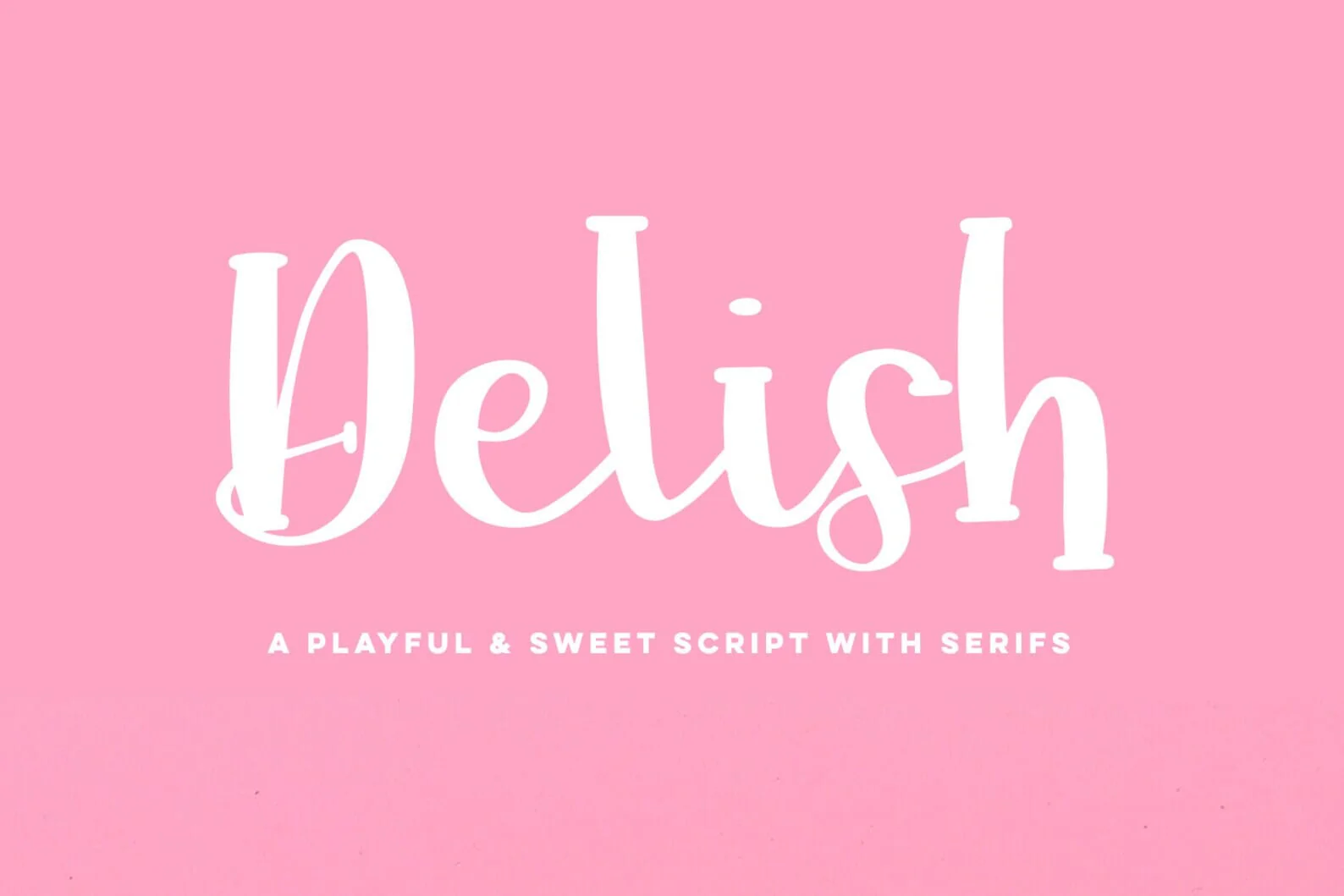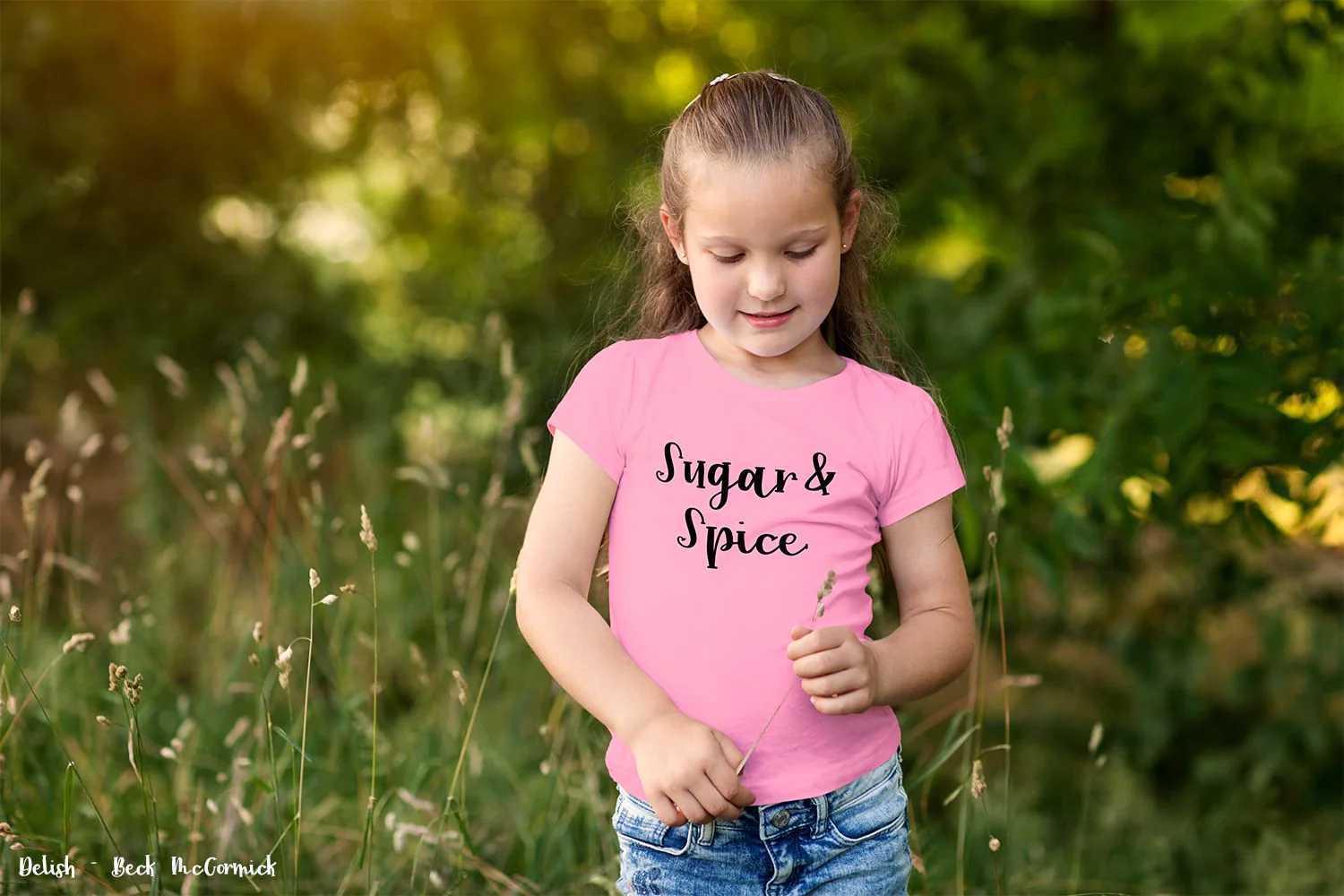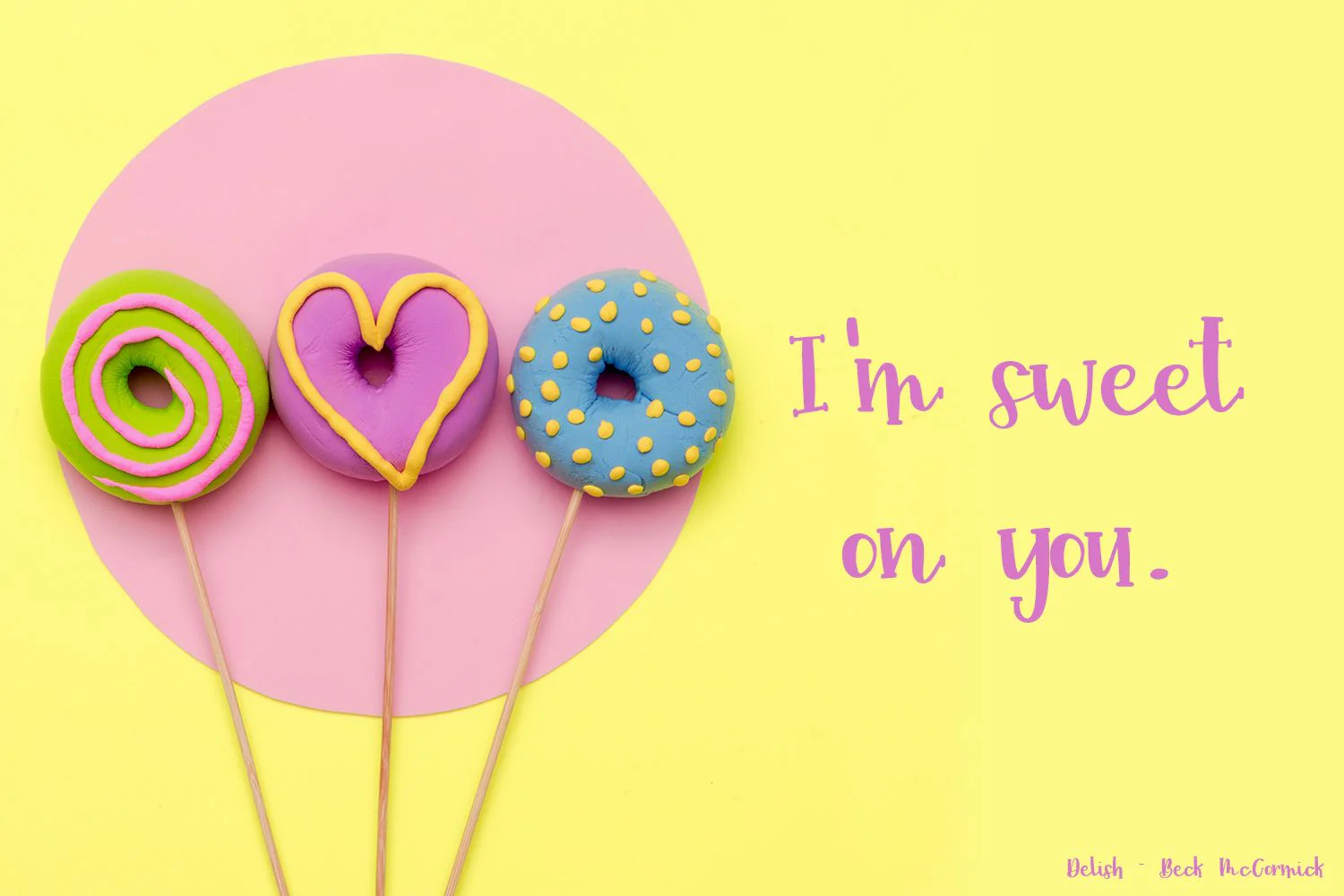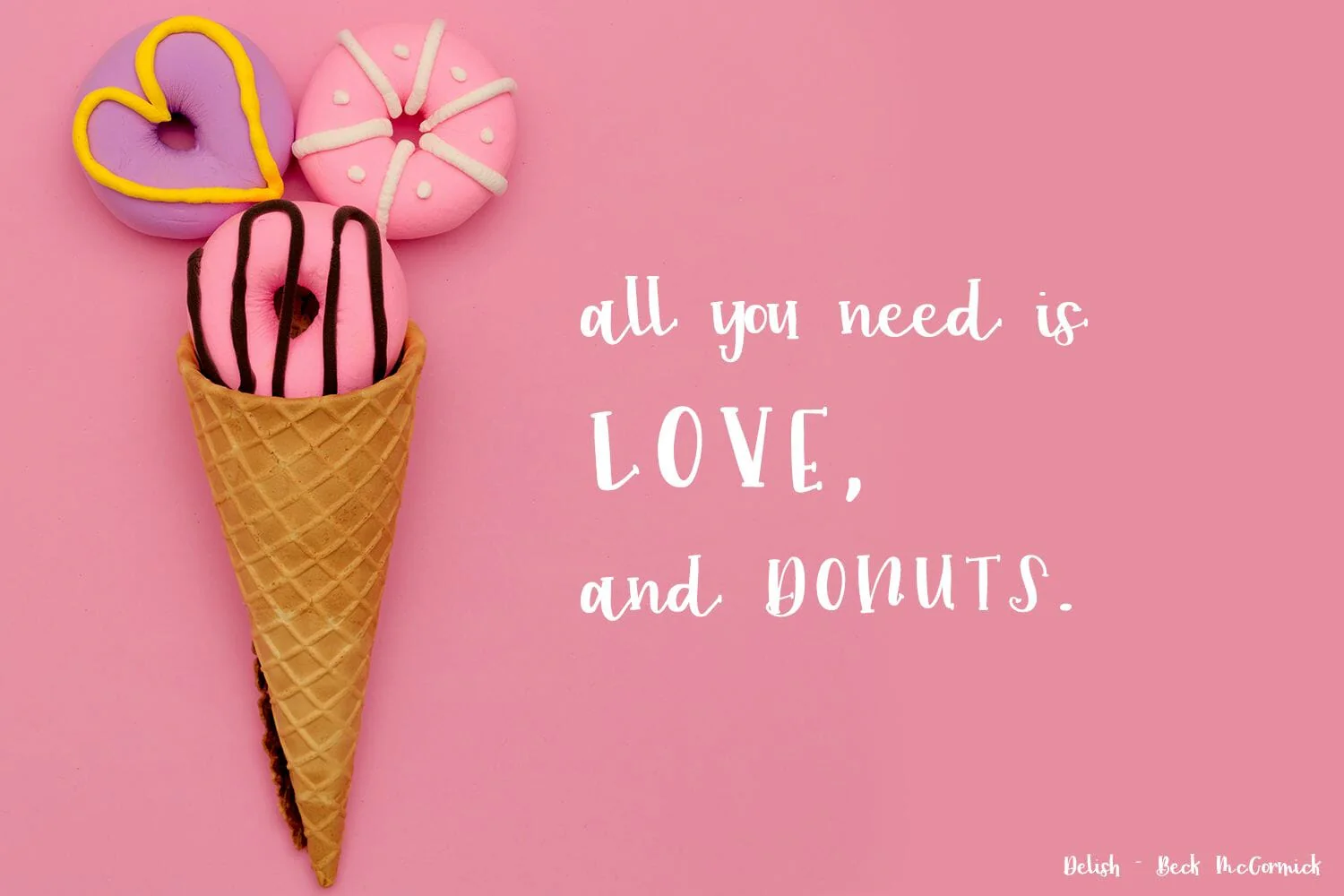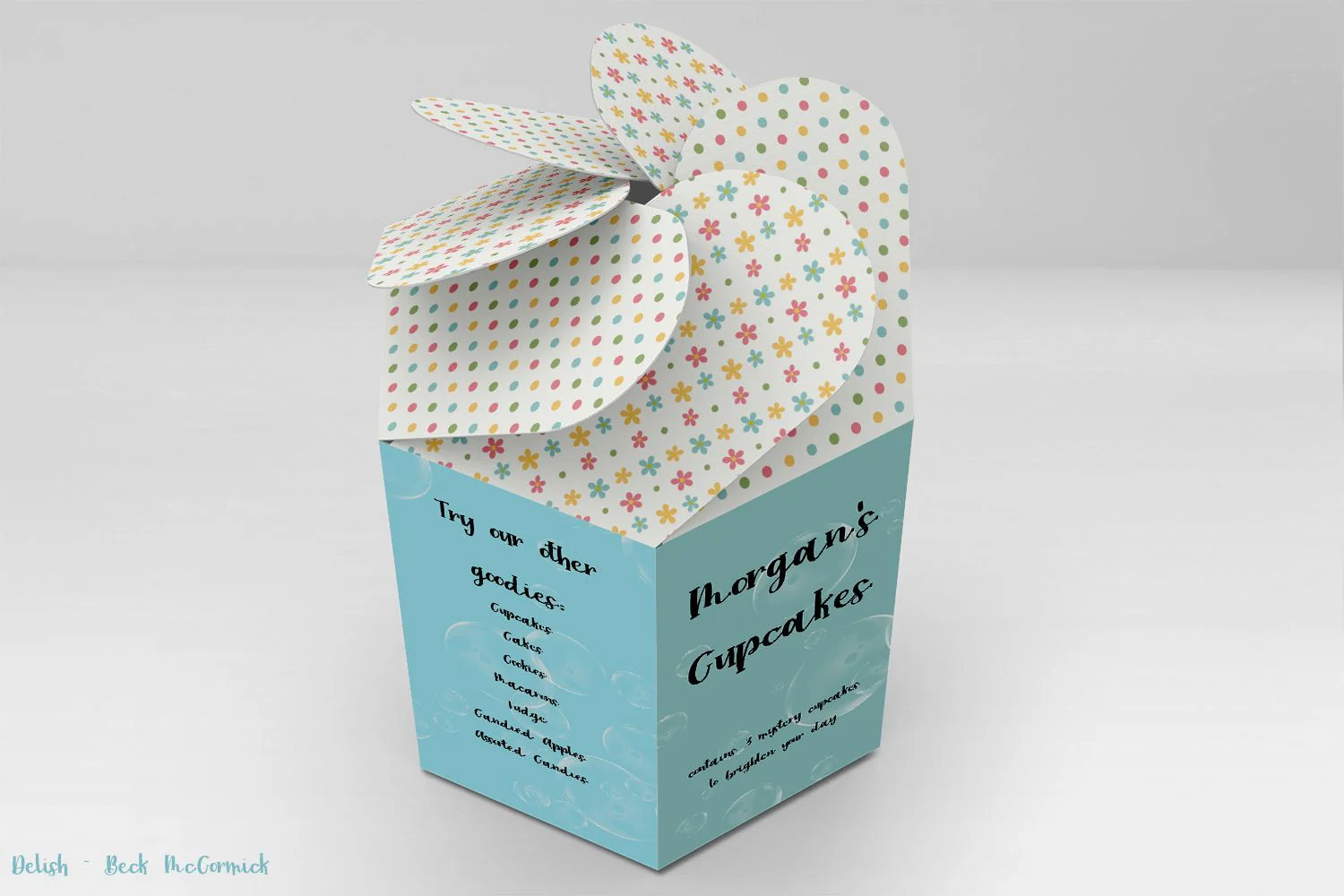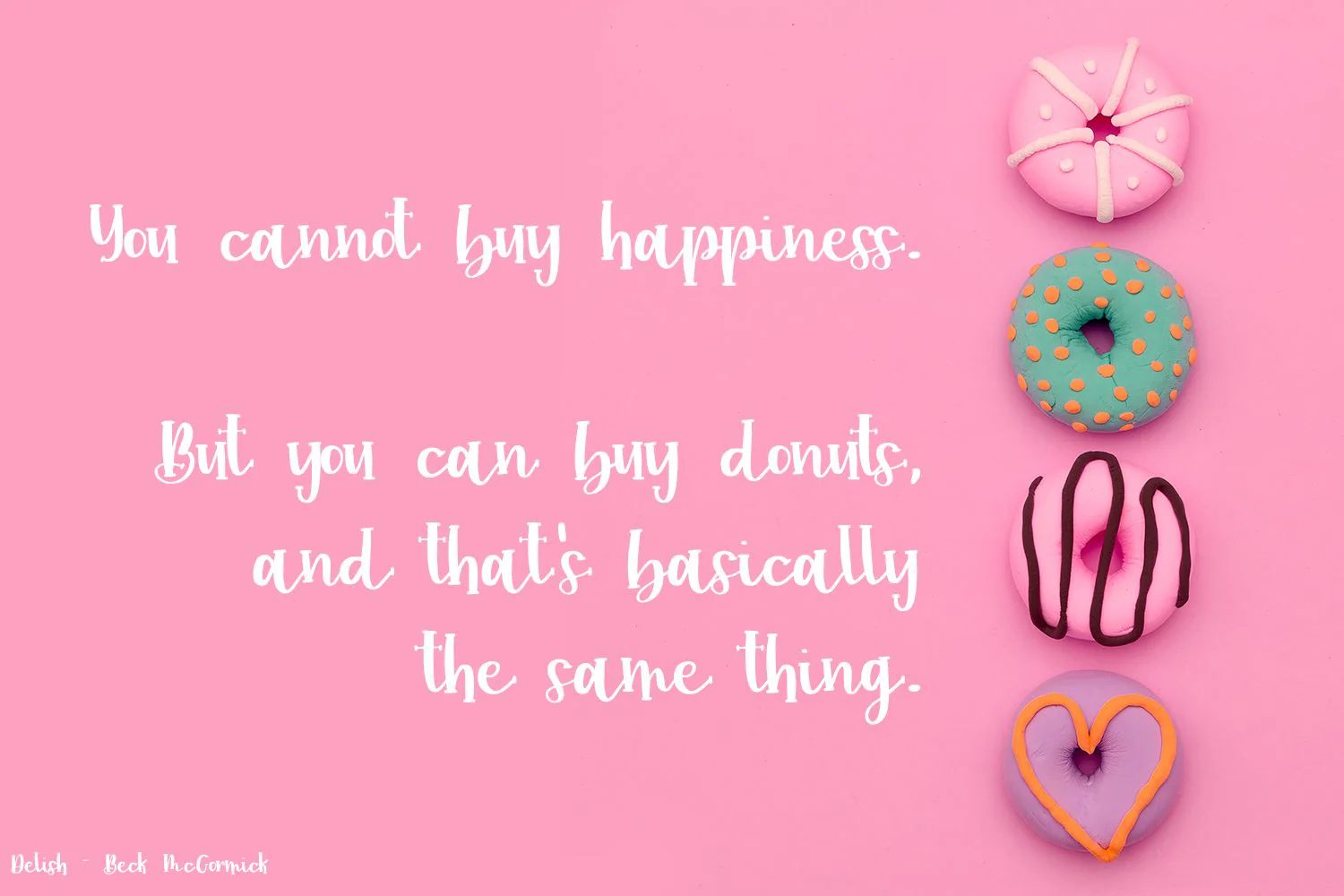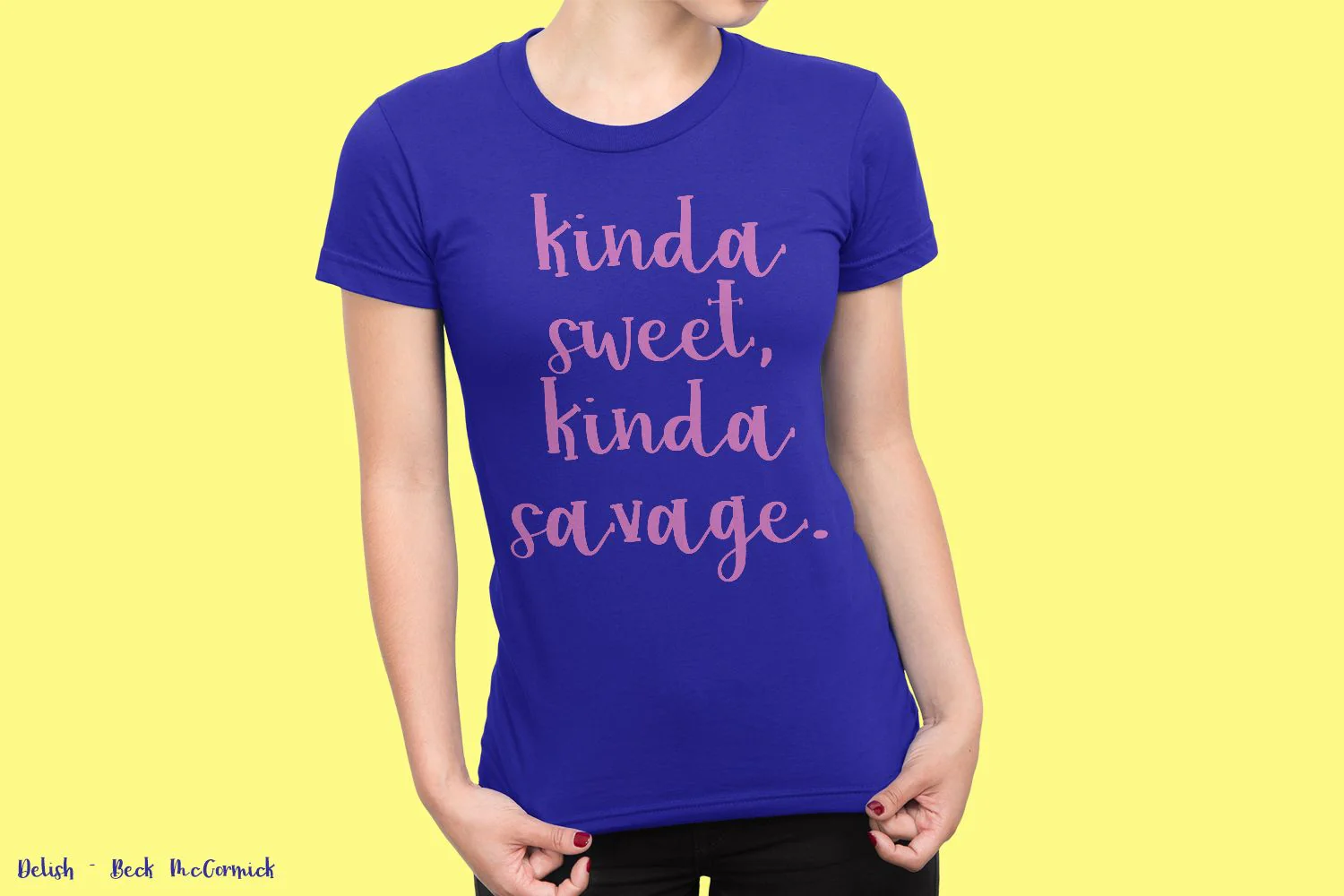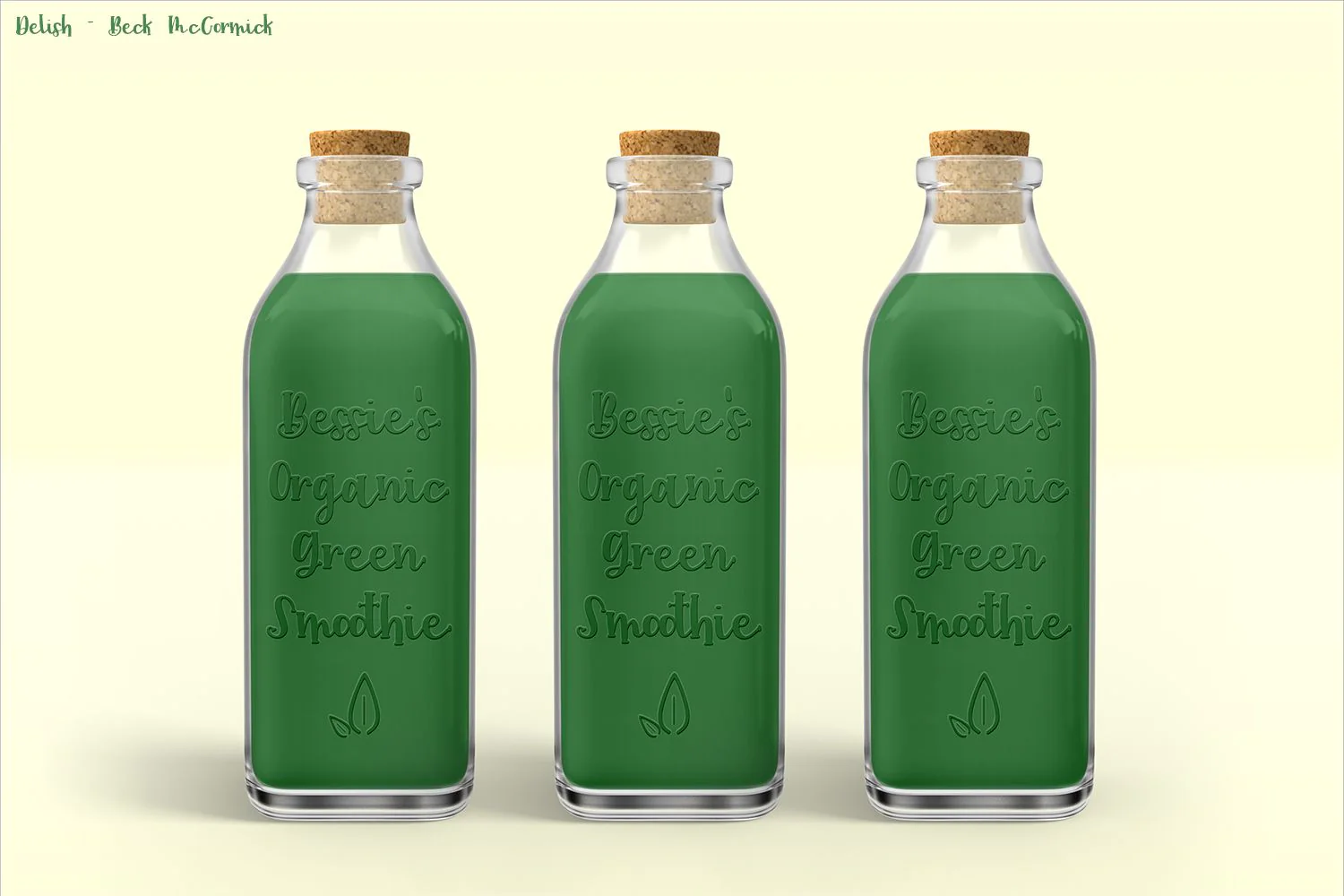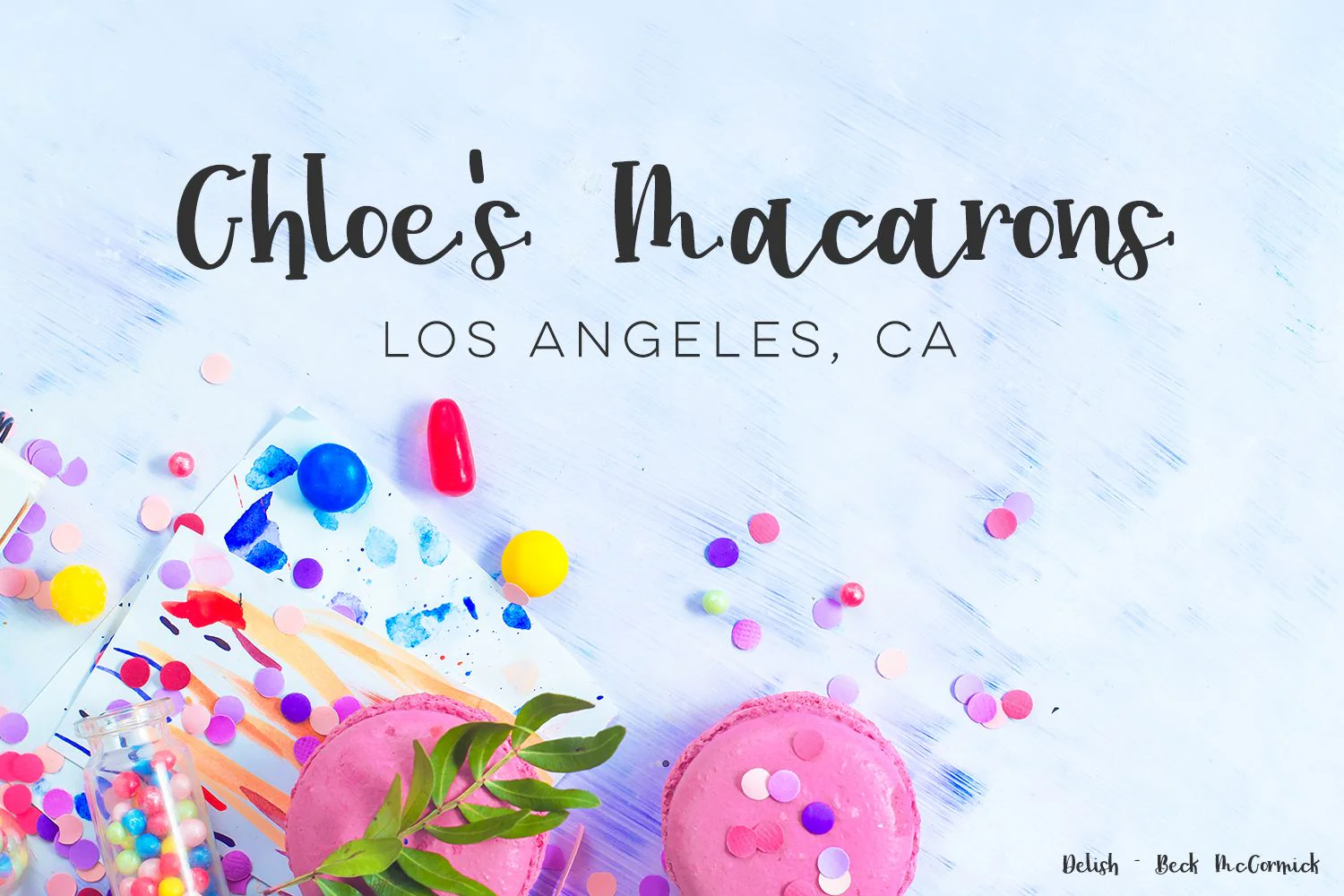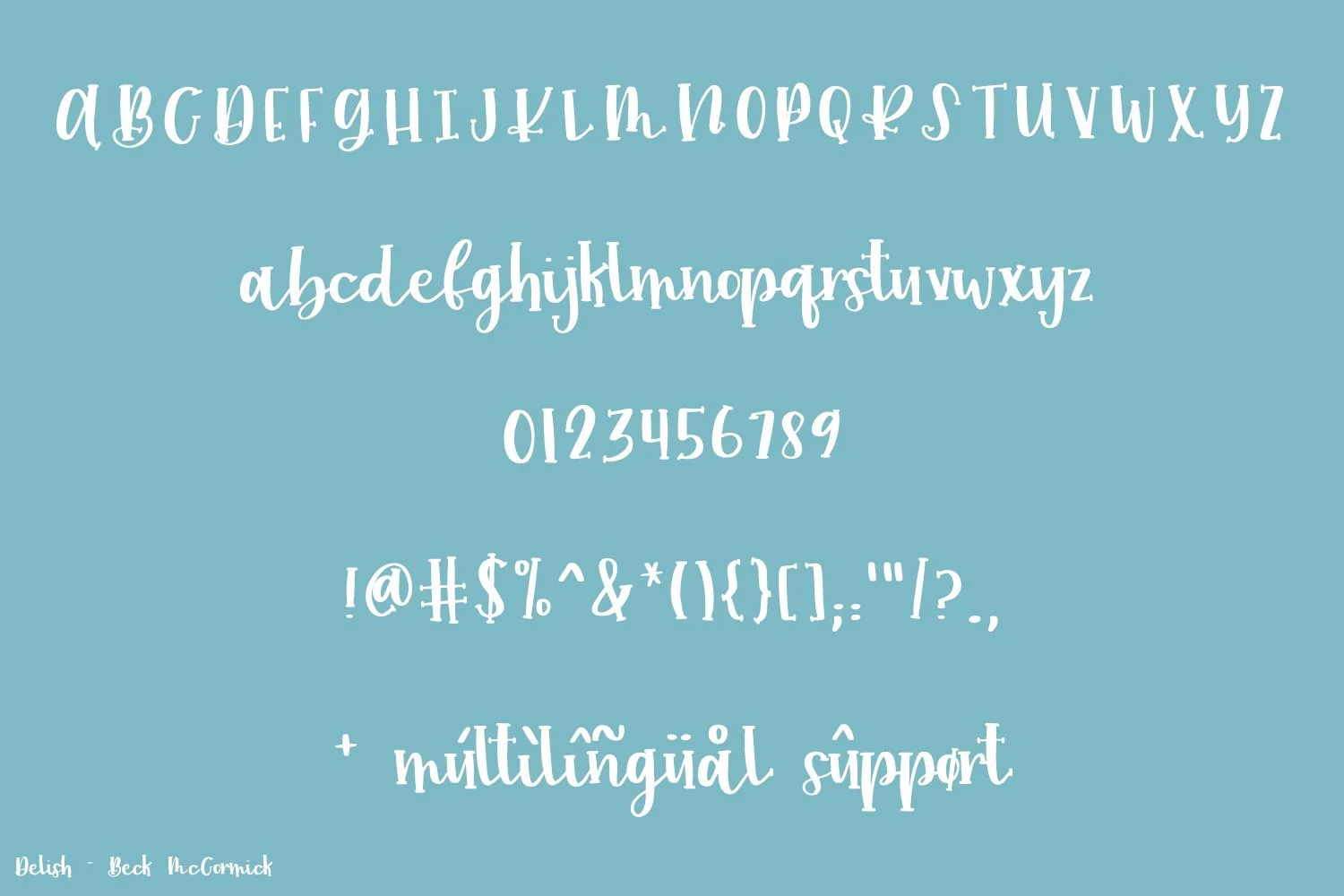
Delish Serif Script Font
Meet Delish Script, a bubbly cursive font with playful serifs!
Delish is best for:
- clean print design, like funky magazines + flyers
- header elements that need a fun, legible touch
- logos + branding that are kid-centric
- quote graphics for social media or t-shirt design
Meet Delish Script, a bubbly cursive font with playful serifs!
Delish is best for:
- clean print design, like funky magazines + flyers
- header elements that need a fun, legible touch
- logos + branding that are kid-centric
- quote graphics for social media or t-shirt design